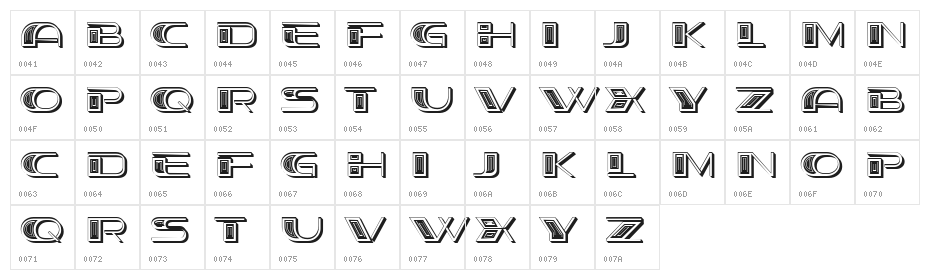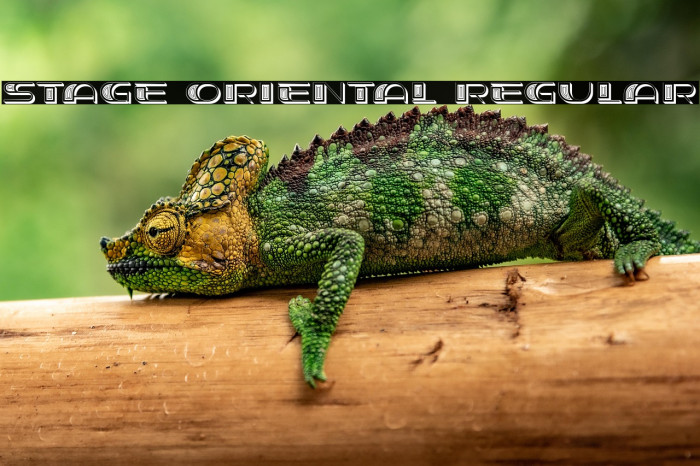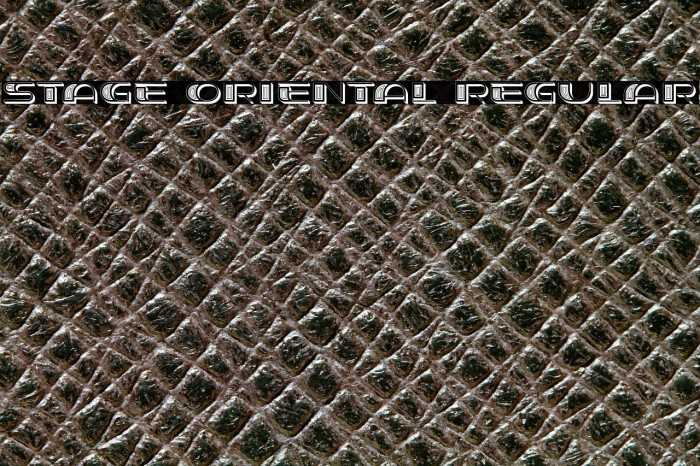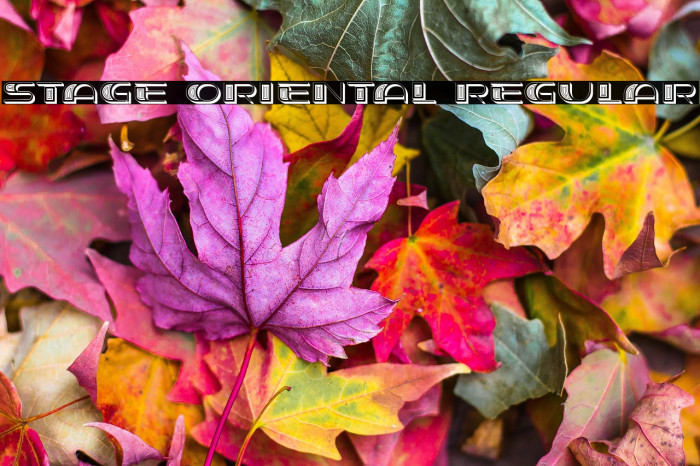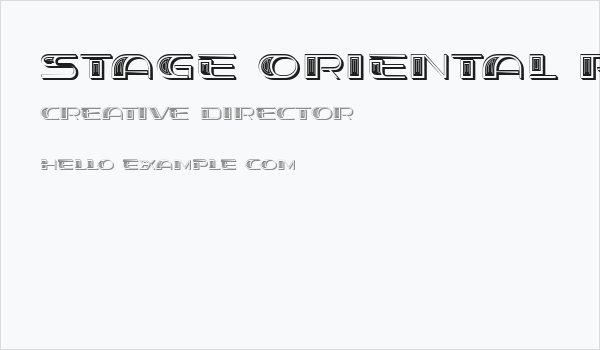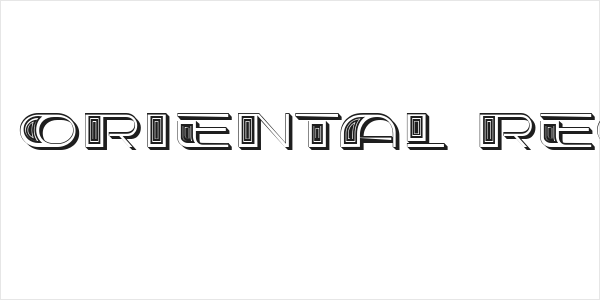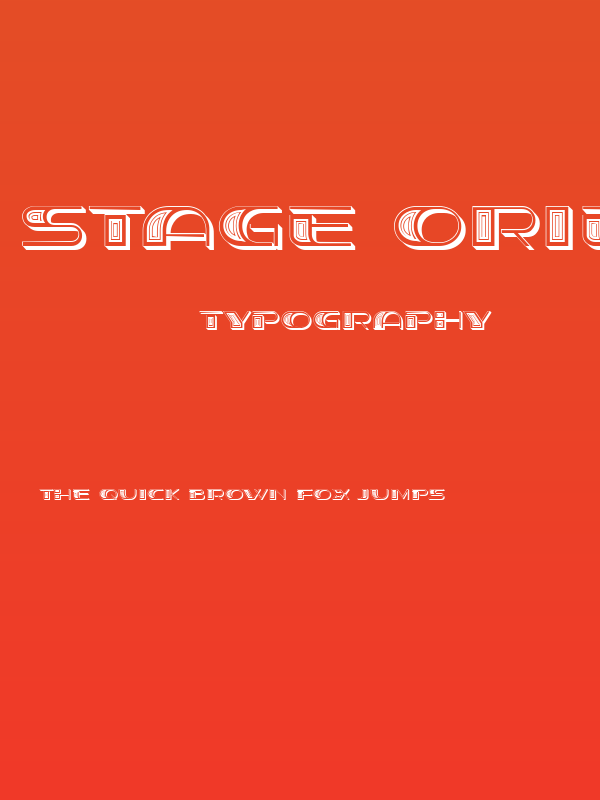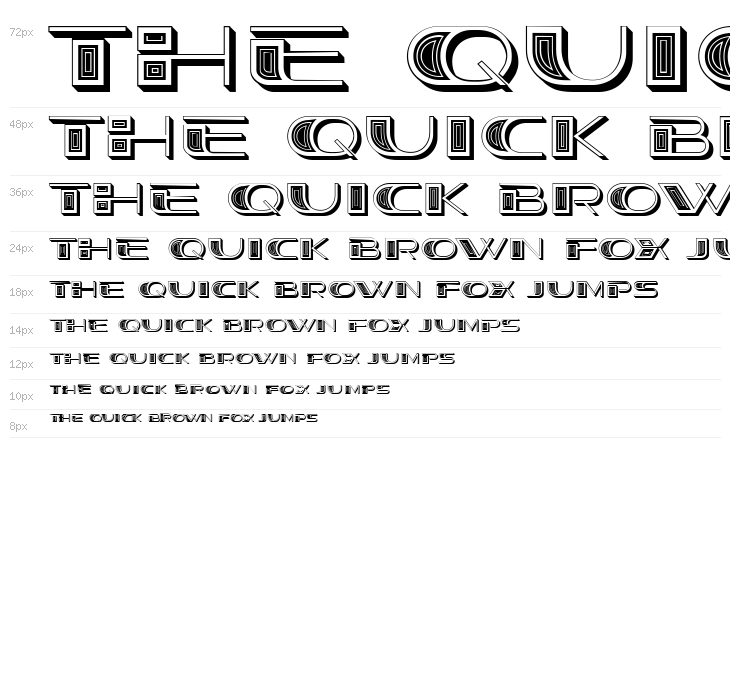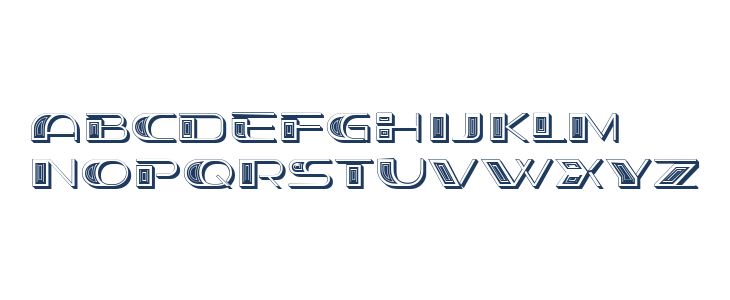
Stage Oriental Regular Font
Stage Oriental Regular Description
This font features a unique and intricate design, characterized by its bold and decorative style. The letters are crafted with a combination of thick and thin strokes, creating a high contrast that enhances its visual appeal. The geometric shapes and sharp angles give it a modern and futuristic look, while the detailed patterns within each character add an oriental flair. This font is perfect for making a statement, with its eye-catching and artistic design that stands out in any context.